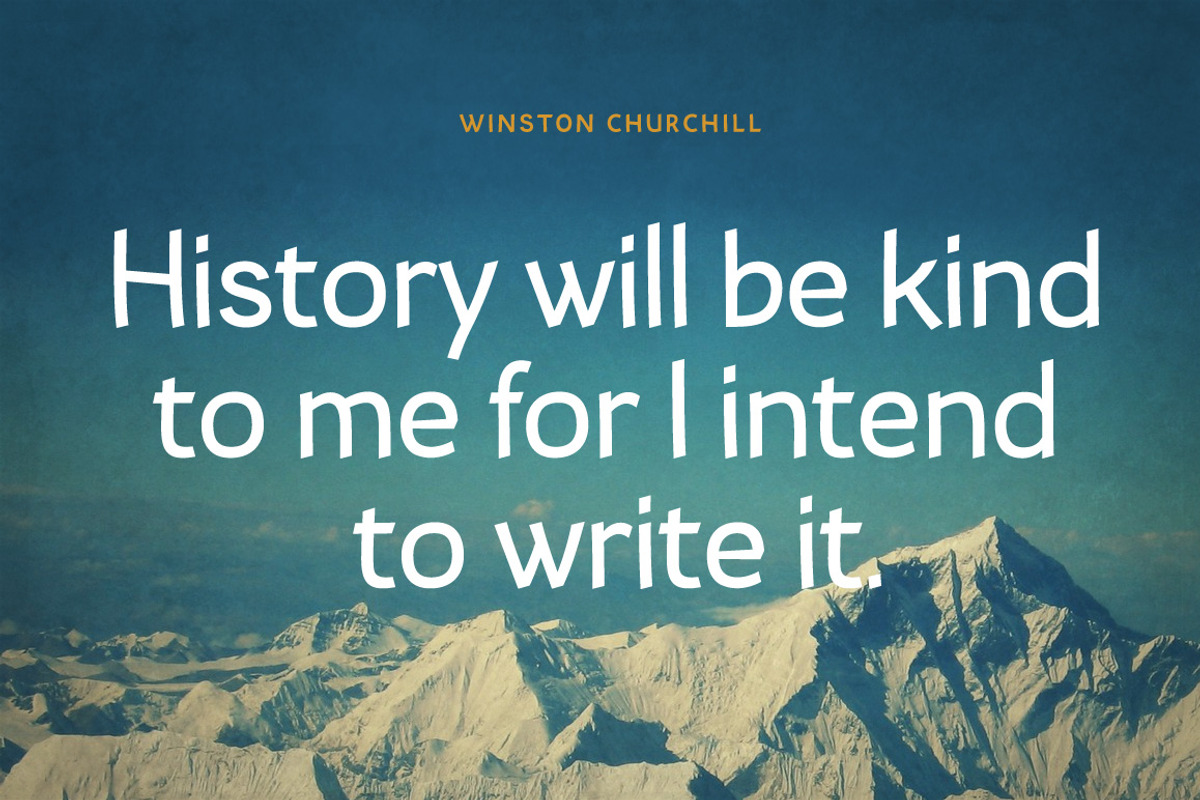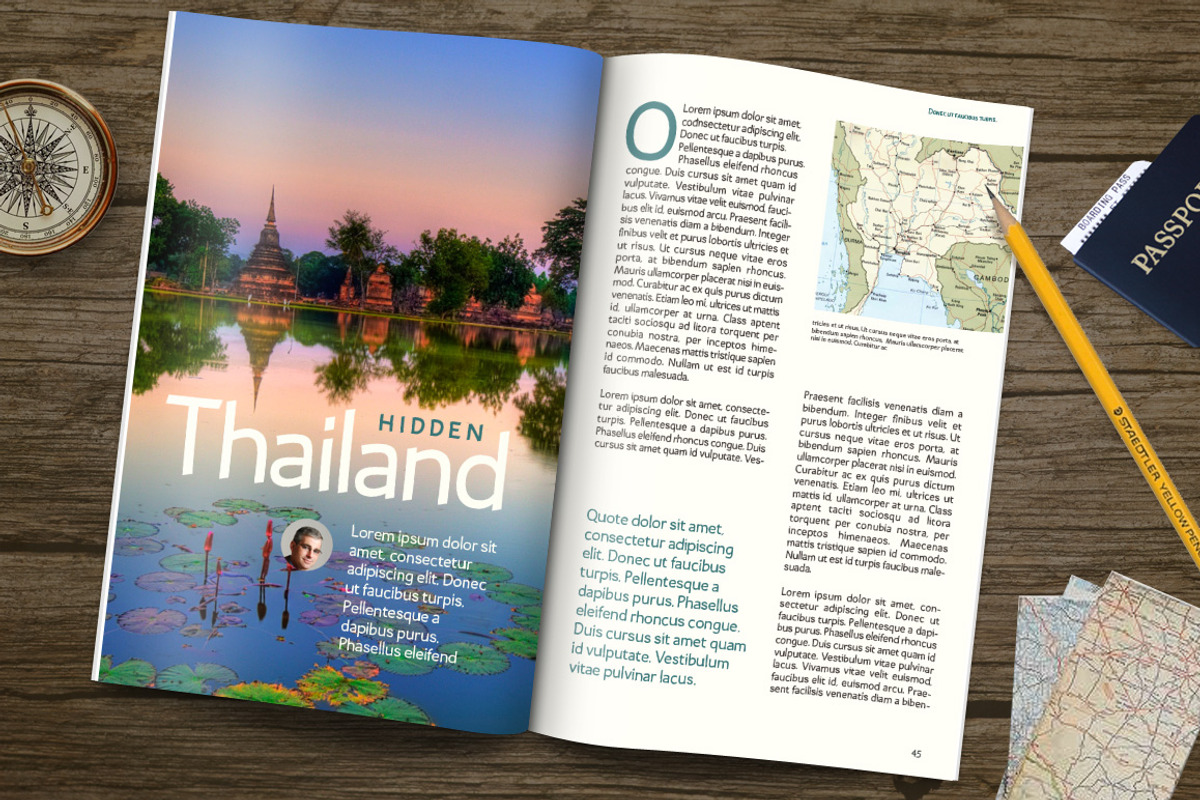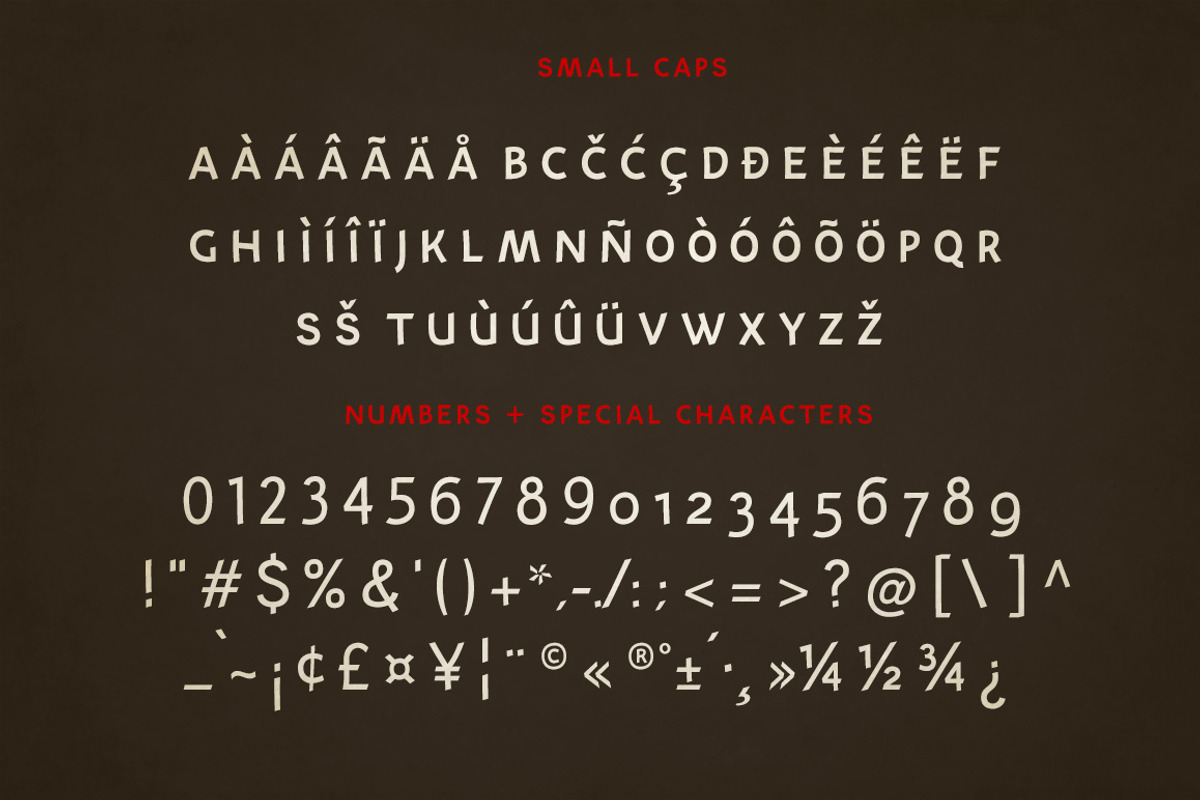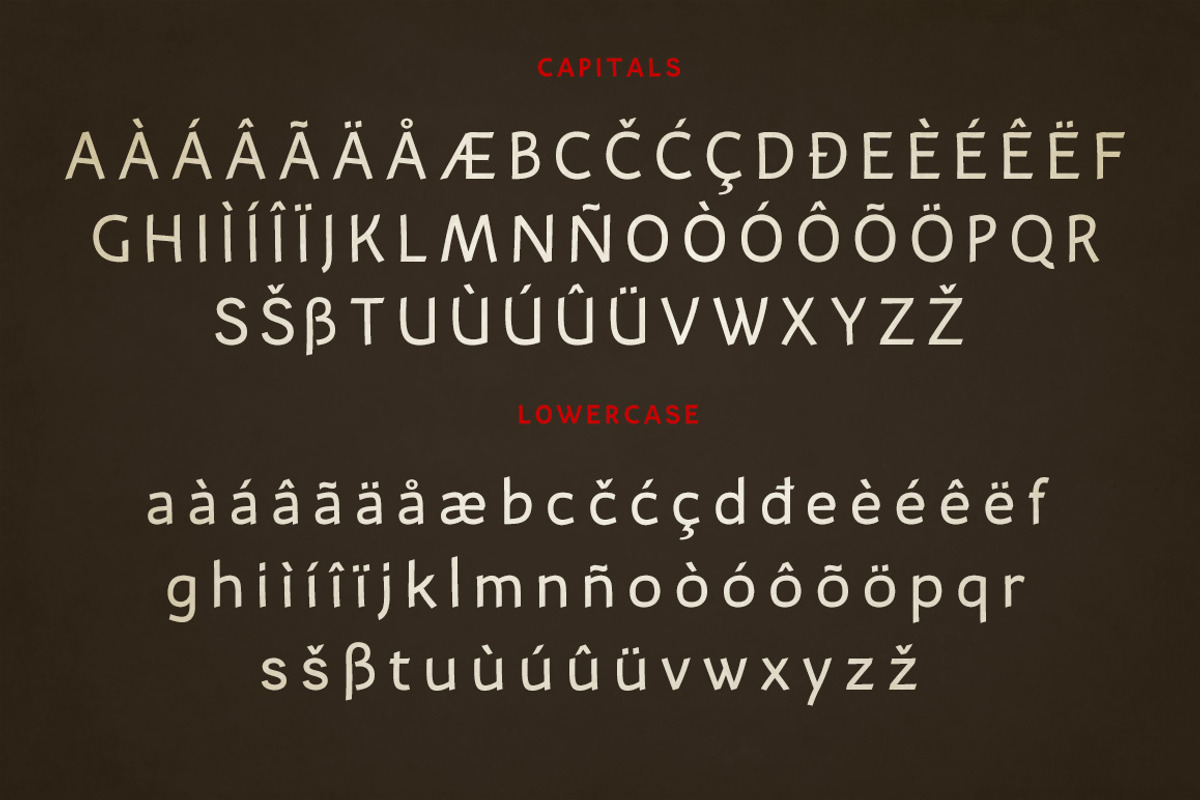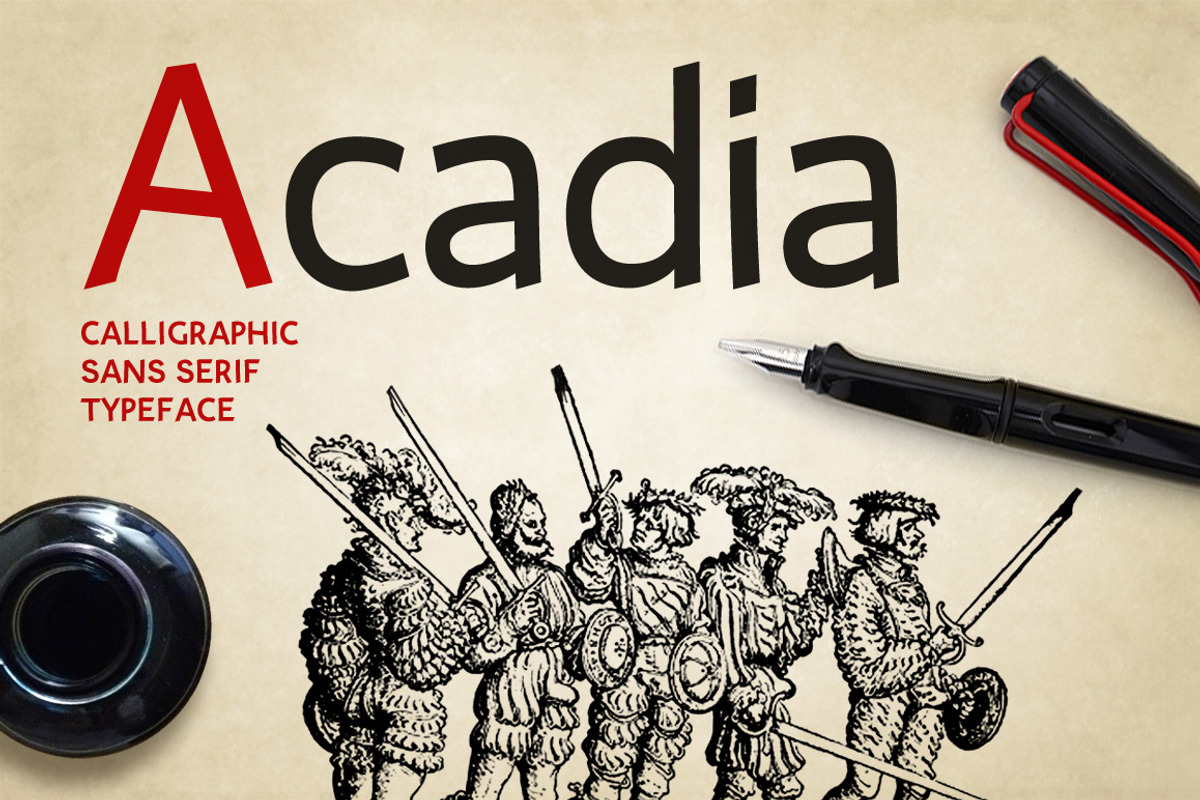
Acadia typeface
Acadia is a modern combination mono-line / calligraphic typeface. It was designed during Type@Cooper Summer - Condensed program 2014., as a result of calligraphic bamboo pen exercise. It is intended both for headlines and shorter texts. For text usage there are (OTF) features like:
- small caps
- alternative characters